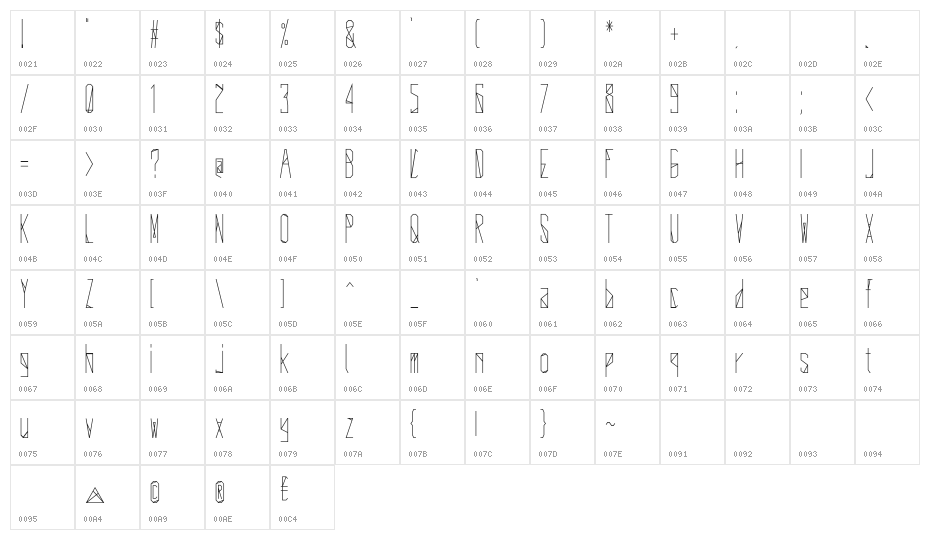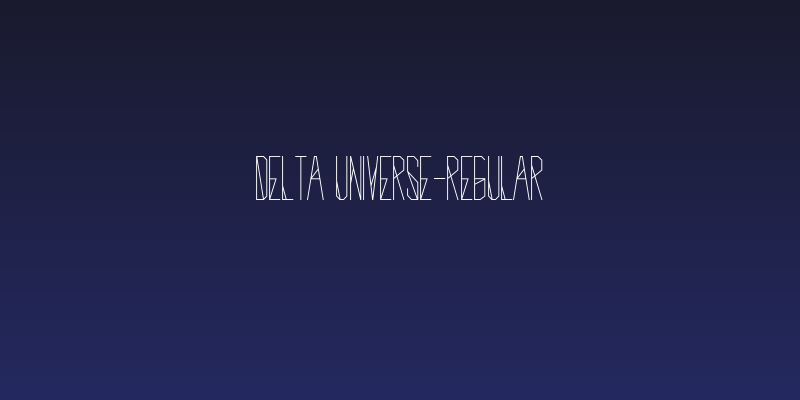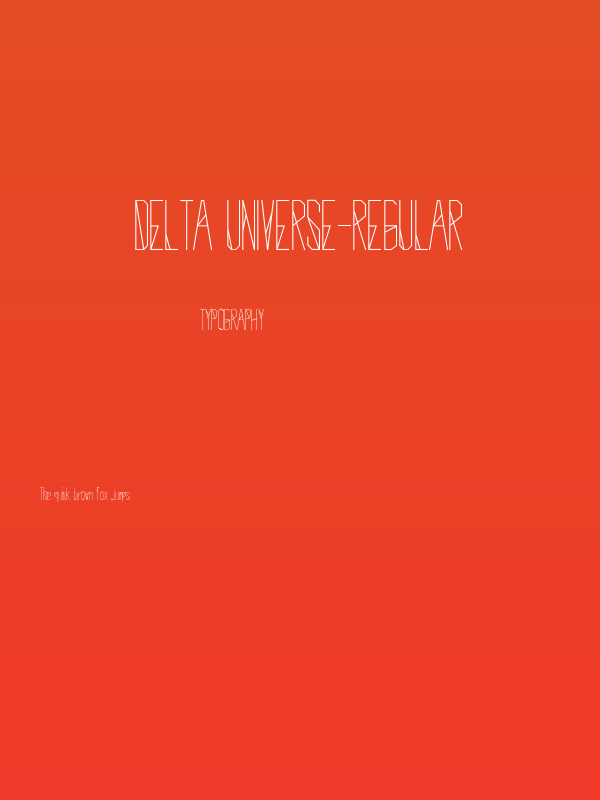
Delta Universe-Regular Font
Delta Universe-Regular Description
This font features a highly geometric and angular design, characterized by its sharp edges and linear forms. The uppercase letters are tall and narrow, with a futuristic and abstract appearance. The lowercase letters maintain a similar style, offering a cohesive look across the typeface. Numbers and special characters are designed with the same angular and geometric approach, ensuring consistency. The overall aesthetic is modern and edgy, making it suitable for projects that require a distinctive and unconventional typeface.
| Proposed Projects | Ideal for sci-fi themed designs, modern art posters, tech branding, and innovative product packaging. |